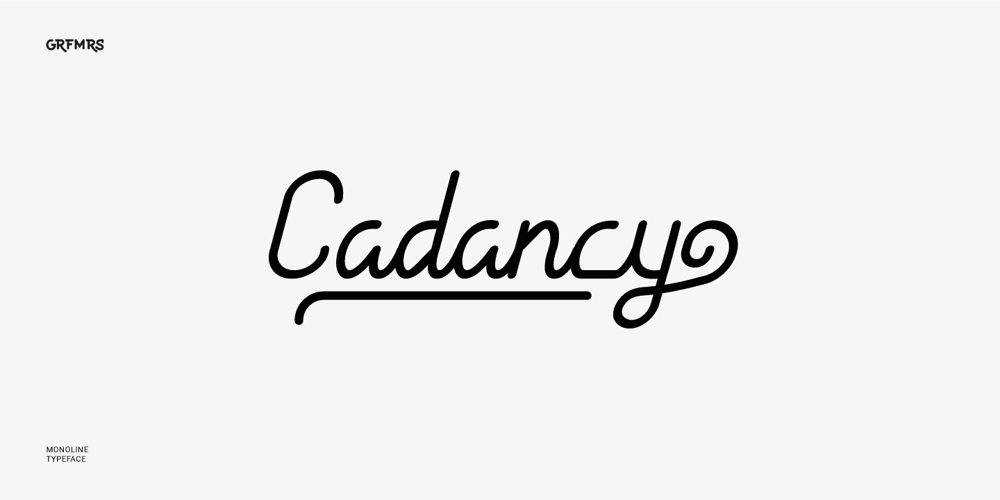
Cadancy Font Family was designed by Irgy Widhiarma and published by Grafemars. Cadancy contains 1 styles and family package options. Cadancy is a simple monoline typeface, designed with consistent line touches providing a subtle text feel, perfect for large and medium displays. has additional character and swash styles to enrich the look of your designs.